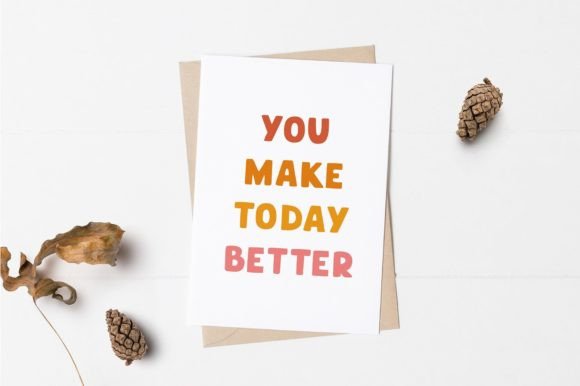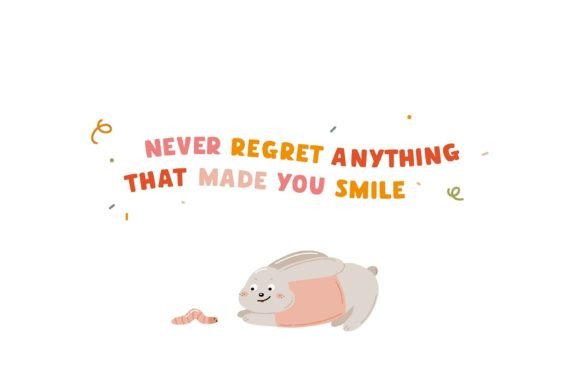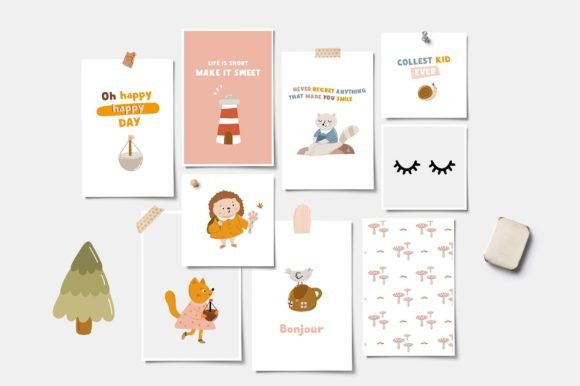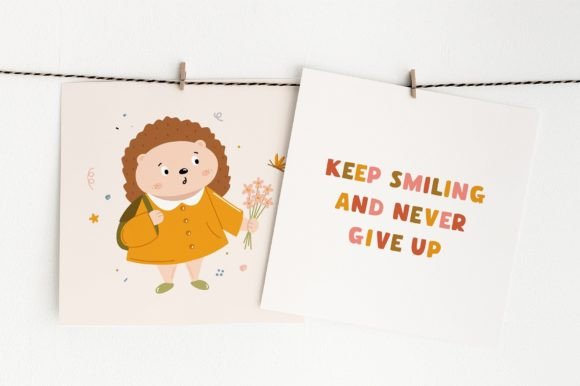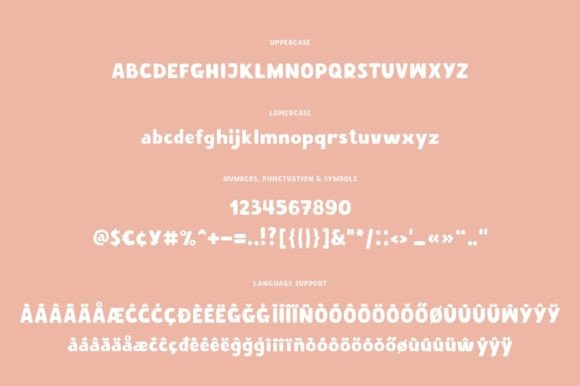
Introduction to Little Friends Font
Little friends feel playfully handmade and deliver an incredibly playful handwritten font.
Use this display font to add that special playful touch to any design idea you can think of From child-friendly designs to brochure selections, youโre going to find this pick easy to play with.